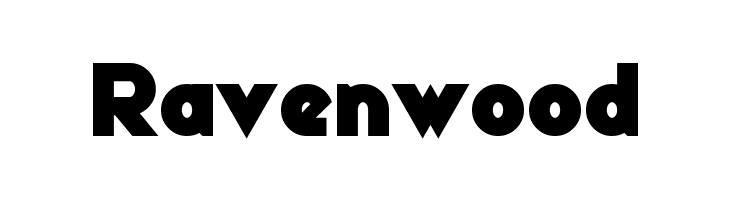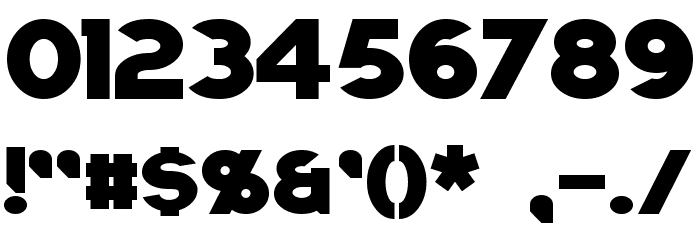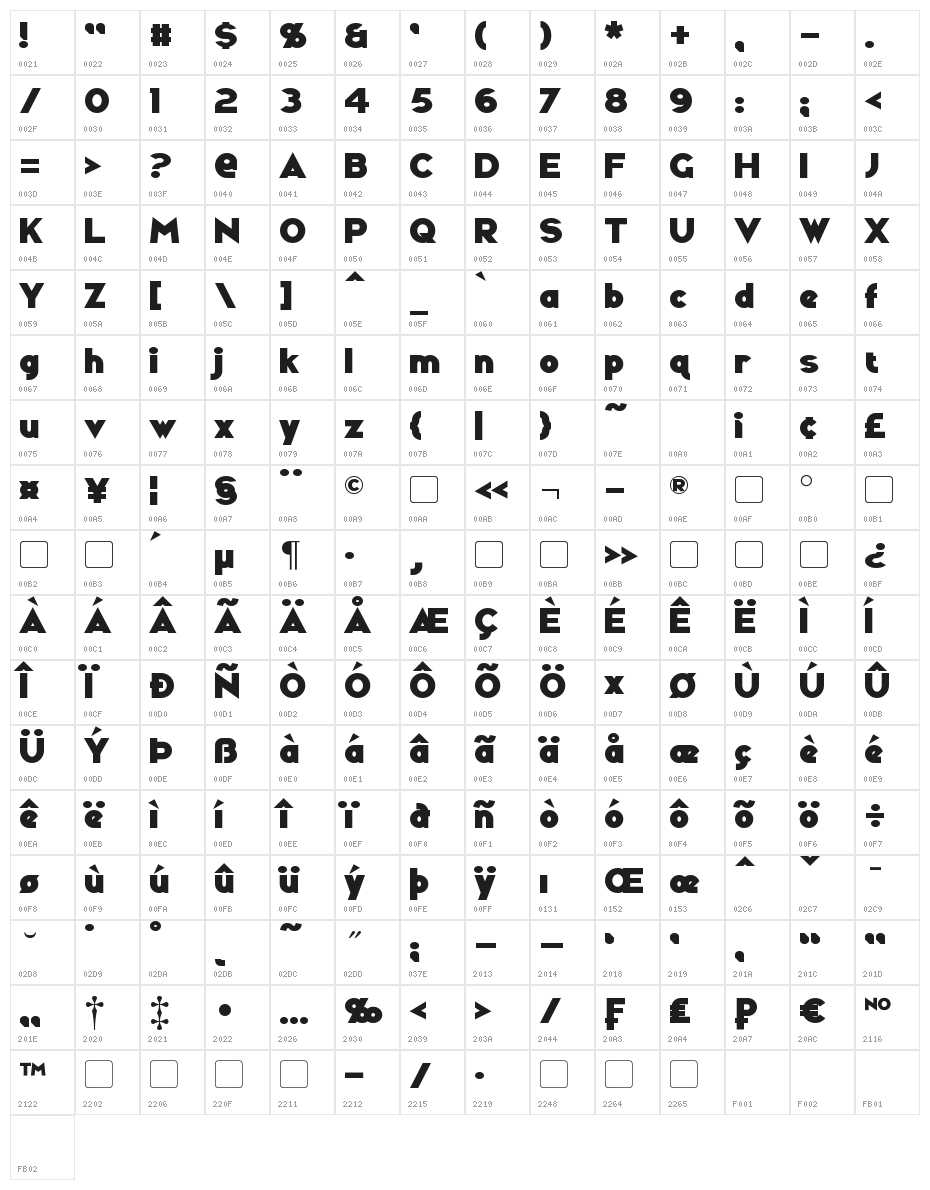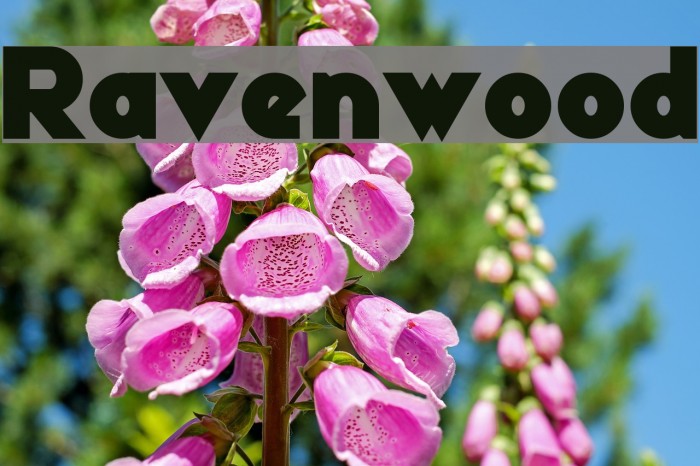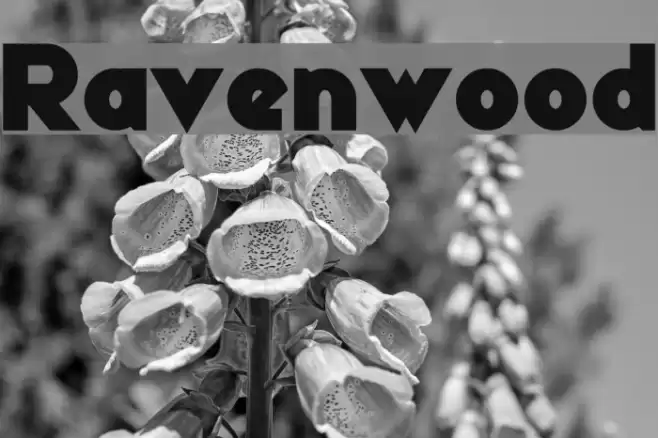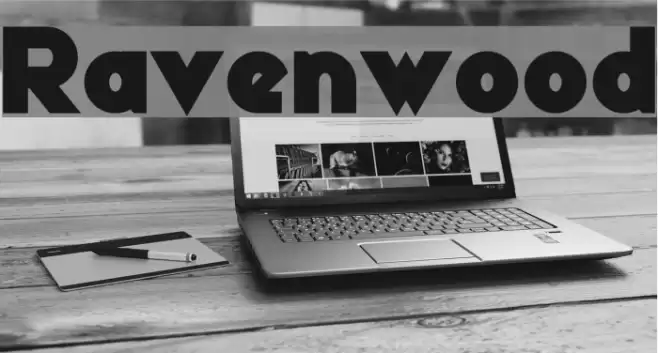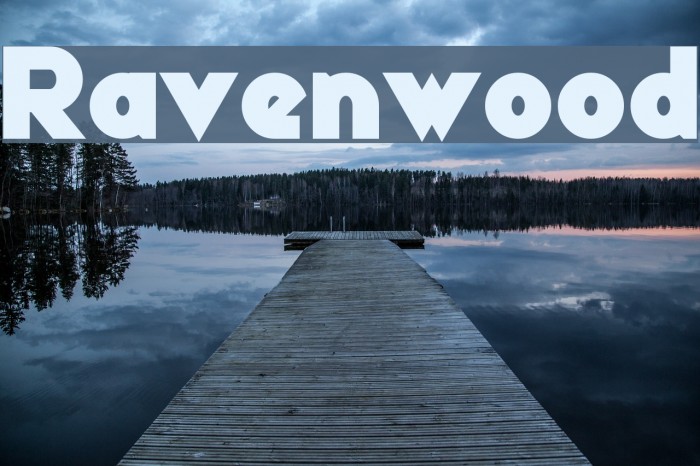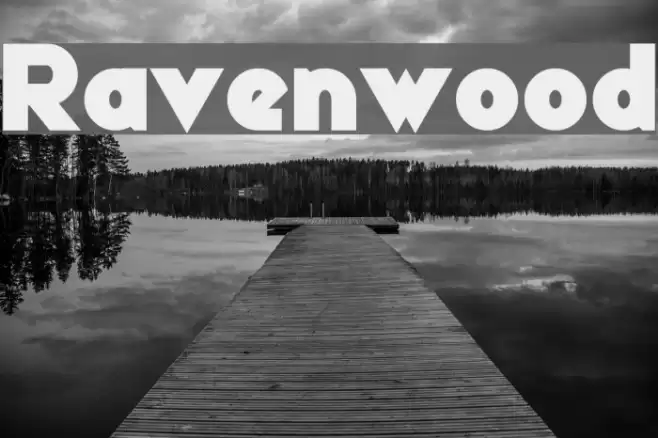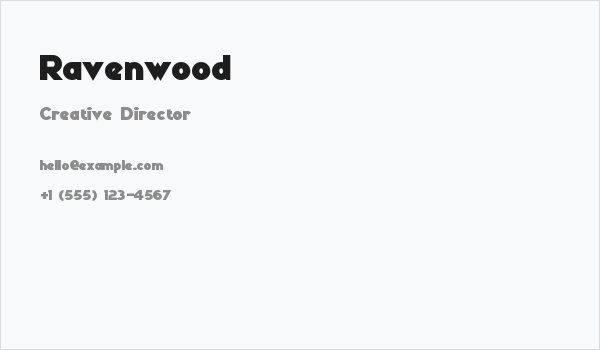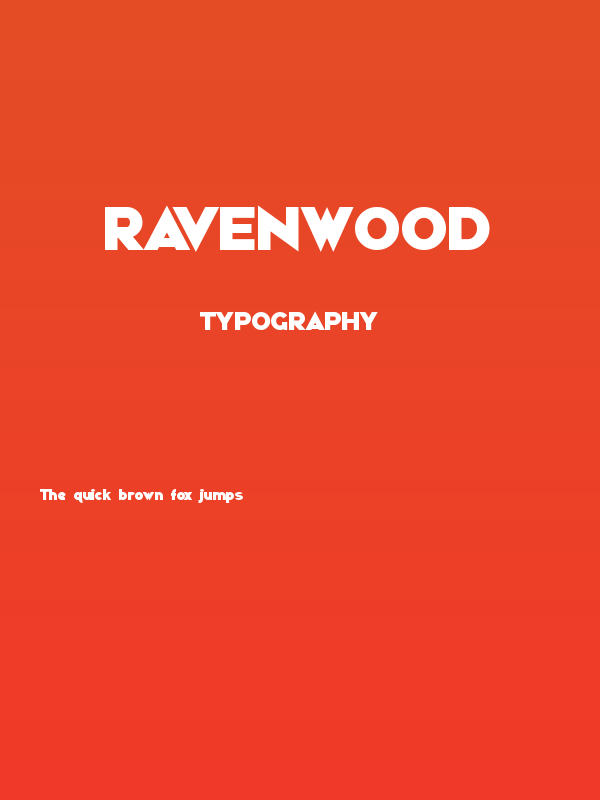
Ravenwood Font
Ravenwood Description
This bold and striking font features a geometric design with strong, angular lines and a modern aesthetic. The uppercase letters are characterized by their sharp edges and uniform thickness, creating a powerful visual impact. The lowercase letters maintain the boldness with rounded forms that contrast the angular uppercase, adding a touch of softness. The numerals are consistent with the overall style, offering clarity and readability. Special characters are designed with the same boldness, ensuring they stand out. This font's overall appearance is both contemporary and versatile, making it suitable for a variety of design applications.
| Proposed Projects | Ideal for branding, headlines, posters, and any design requiring a strong visual impact. |